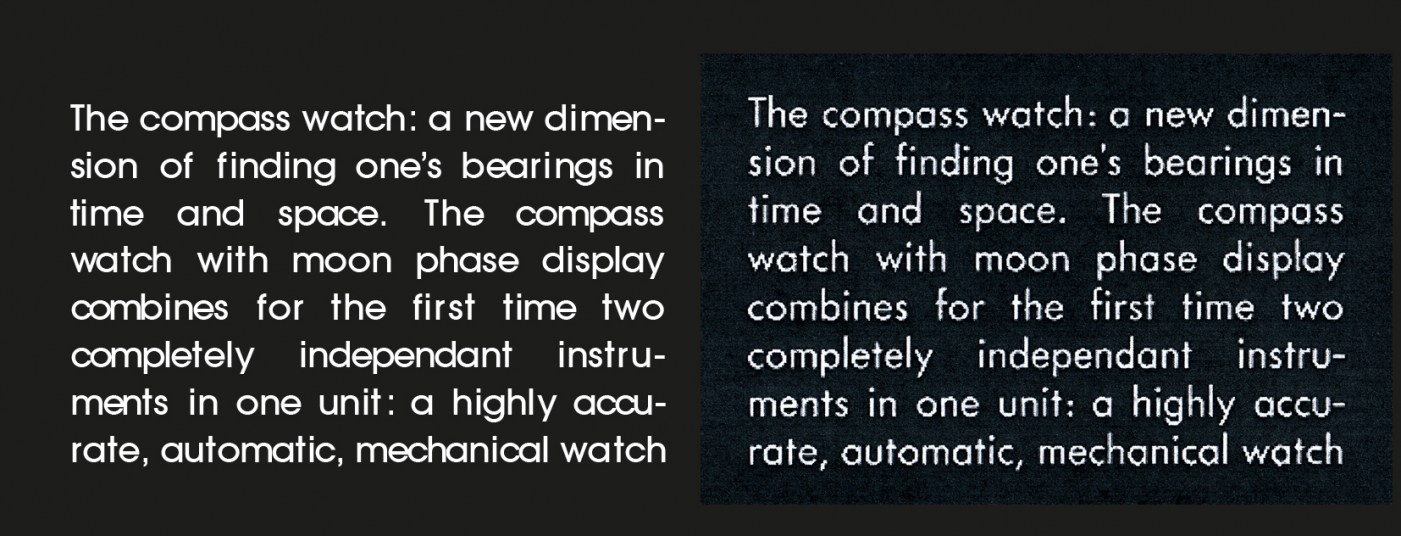
What's this? ...something Avant Garde-esque
So yeah, I'm at a loss...
I'm trying to recreate an older (80's) instruction manual for a watch I own.
As you can see in my attached pic, the original is to the right and my 'test' is to the left.
It seems that the 'ascenders' (is that the English term for it?) are taller in the original, and the letters are less closed than in my Avant Garde-example.
Among a couple of other, smaller, differences.
Anyone have any idea?
...but yeah, I did get it after looking around a bit more.
Can't believe I didn't get this sooner. I was just so 'set' on it being Avant Garde, that I couldn't see anything else.
After doing the post here I did decide to look some more and tried Century Gothic and Futura (which is right).